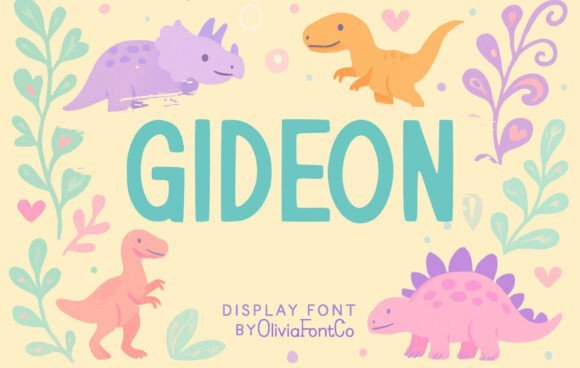
Meet Gideon Font, the ultimate companion for designers seeking to elevate their work. This versatile font is designed to be a true favorite, effortlessly balancing legibility with style to create stunning visuals. Whether you’re crafting magazine headlines, designing t-shirts, or curating social media content, Gideon Font has the potential to take your creative ideas to the highest level.
For designers, Gideon Font is more than just a font – it’s a valuable tool for bringing your unique vision to life. With its adaptability and charm, it’s perfect for a wide range of designs, from branding and wedding invitations to cards and social media posts.
Gideon Font Key Features
- Font Family: Gideon is a sans-serif font family designed for digital use.
- Character Set: Supports a wide range of languages, including Latin, Cyrillic, and Greek.
- Unique Characteristics: Gideon features a clean, modern design with a subtle rounded edge, making it ideal for digital interfaces and user-friendly designs.
Gideon Font Review
Gideon Font is an interesting addition to the world of typography. I have to say, I was drawn to its unique style and versatility. ✨ The font is available in multiple weights and styles, making it suitable for a wide range of applications.
- Legibility: Gideon Font is highly legible, even at smaller font sizes. ✨
- Customization: The font offers a lot of customization options, making it easy to adapt to different designs. ✨
- Neutral style: The font’s neutral style makes it a great choice for any project, from corporate to creative. ✨
However, there are some limitations to consider. ⚠️ The font’s uniqueness can also be a drawback, as it may not be suitable for all projects. Additionally, some users may find the font too plain or lacking in personality.
- Lack of personality: Some users may find the font too plain or lacking in personality. ⚠️
- Not ideal for bold statements: Due to its neutral style, Gideon Font may not be the best choice for projects that require bold statements or dramatic effects. ⚠️
Overall, I think Gideon Font is a solid choice for designers who value versatility and legibility. While it may not be the best fit for every project, it’s definitely worth considering for those looking for a neutral, yet effective font.
Tips for Getting the Most Out of Gideon Font
For best results, use Gideon Font in conjunction with bold or italic styles to add emphasis and visual interest to your text. You can also experiment with different font sizes and combinations to create a unique look.
Gideon Font is commonly used for creative projects, such as graphic design, digital art, and typography-based designs. It’s also suitable for use in business cards, brochures, and other marketing materials where a modern and sophisticated look is desired.
Alternatives to Gideon Font
Merriweather is a classic serif font that is highly legible, making it suitable for body text and long passages of content. It has a timeless feel and is often used in traditional and formal contexts.
Merriweather is more formal and traditional than Gideon Font, which has a more modern feel. Merriweather is also more suitable for large blocks of text, while Gideon Font is better suited for shorter headings and titles.
Lato is a modern sans-serif font that is highly versatile and suitable for a wide range of applications, from body text to headings. It has a clean and minimalistic feel, making it suitable for modern and tech-related projects.
Can I use Gideon Font for digital products such as mobile apps and websites?